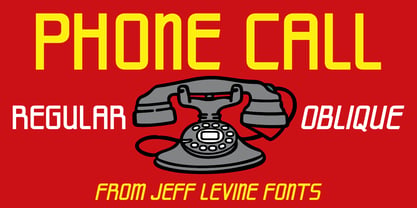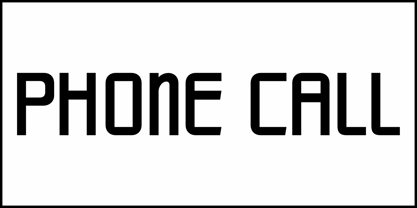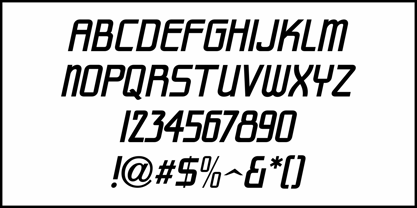
Phone Call JNL
by Jeff Levine
The Phone Call JNL Font Family was designed by Jeff Levine and published by Jeff Levine. Phone Call JNL contains 2 styles and family package options. More about this family
A pleasant. hand lettered Art Deco design from the (1942) book "Simplified Show Card Writing" by Carl Rousseau Havighorst inspired Phone Call JNL [available in both regular and oblique versions], which is part of the vast library of unusual typefaces offered by Jeff Levine Fonts for creative projects. This condensed sans is both formal, yet casual and can serve either function perfectly.